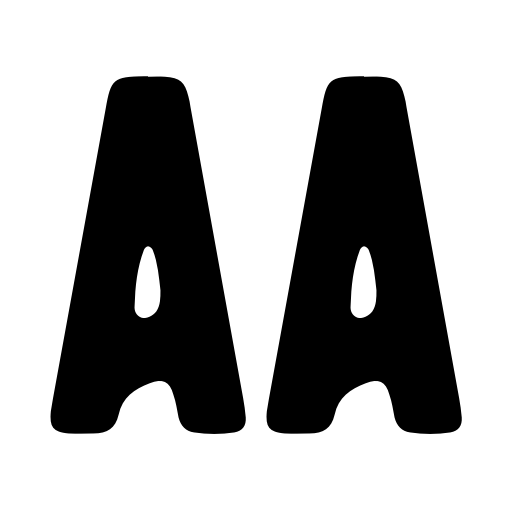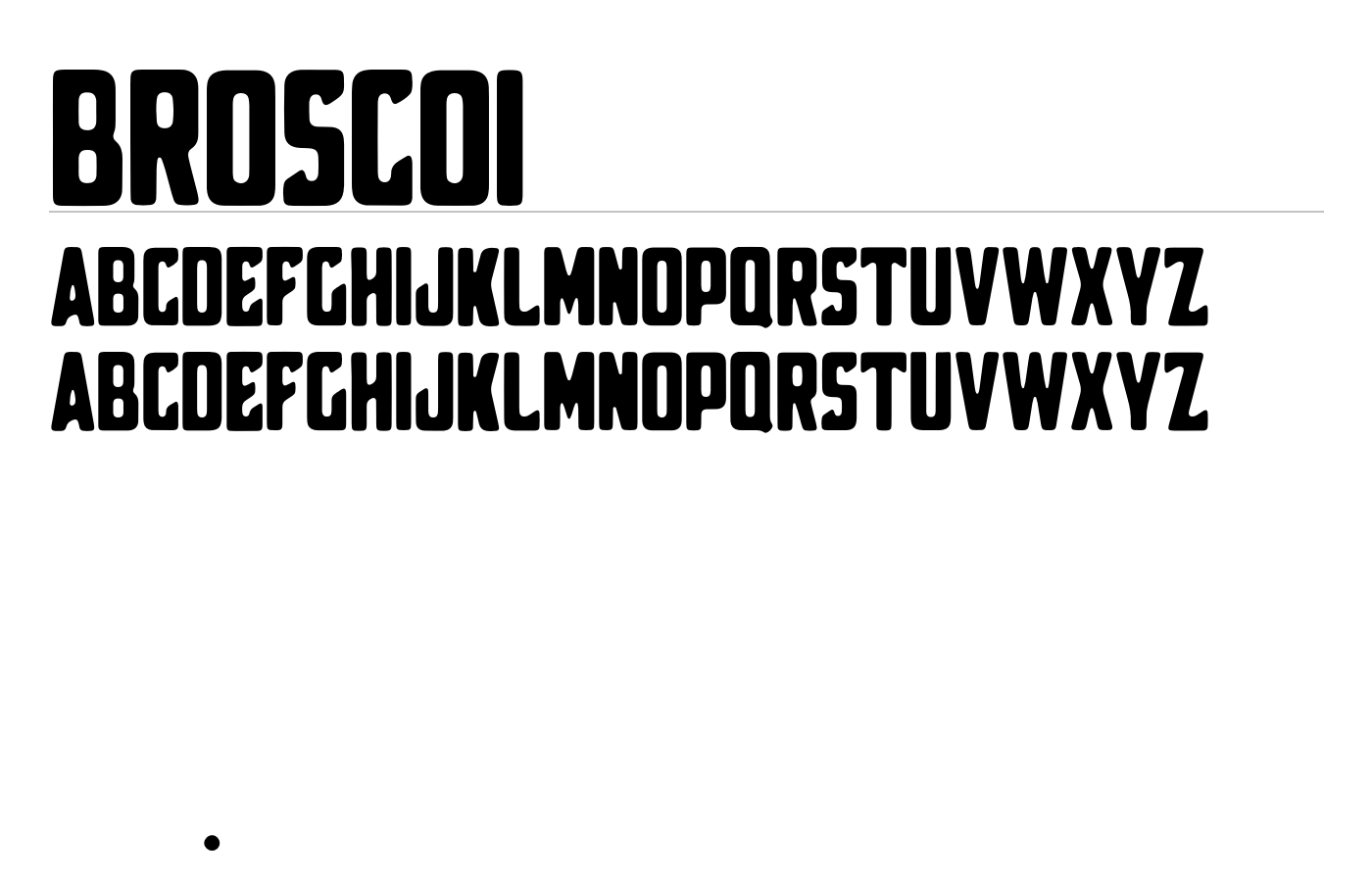
Broscoi is a bold, condensed sans serif font with a playful, rounded style that gives it a friendly and approachable feel. Its thick strokes and tight spacing make it highly visible and impactful, perfect for headlines, posters, and branding that demands attention with a modern, casual vibe. This font works well for creative and energetic projects looking to combine strength with a touch of fun.
Broscoi Font